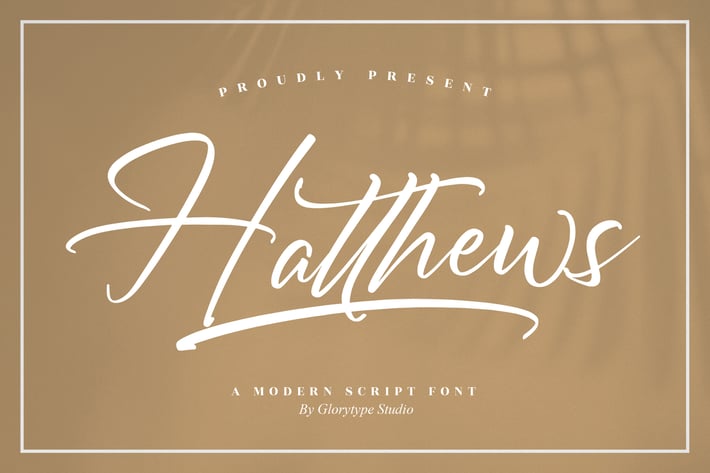
Hatthews Modern Script Font
Hatthews is a modern script font with smooth strokes and elegant flow, designed to feel classy but still fresh. It gives that handwritten luxury vibe without trying too hard — clean, confident, and super aesthetic.
Hatthews blends modern script styling with graceful curves and balanced letterforms, making it perfect for premium branding and expressive typography. It feels personal, stylish, and timeless, ideal for designs that want a soft yet professional signature look.
Modern handwritten script style
Smooth curves with natural flow
Elegant ligatures and stylish alternates
Clean readability for branding use
Branding & logo design
Wedding & invitation design
Social media quotes
Personal projects & portfolios
Elegant packaging and stationery
A modern script that signs your design with effortless elegance.*